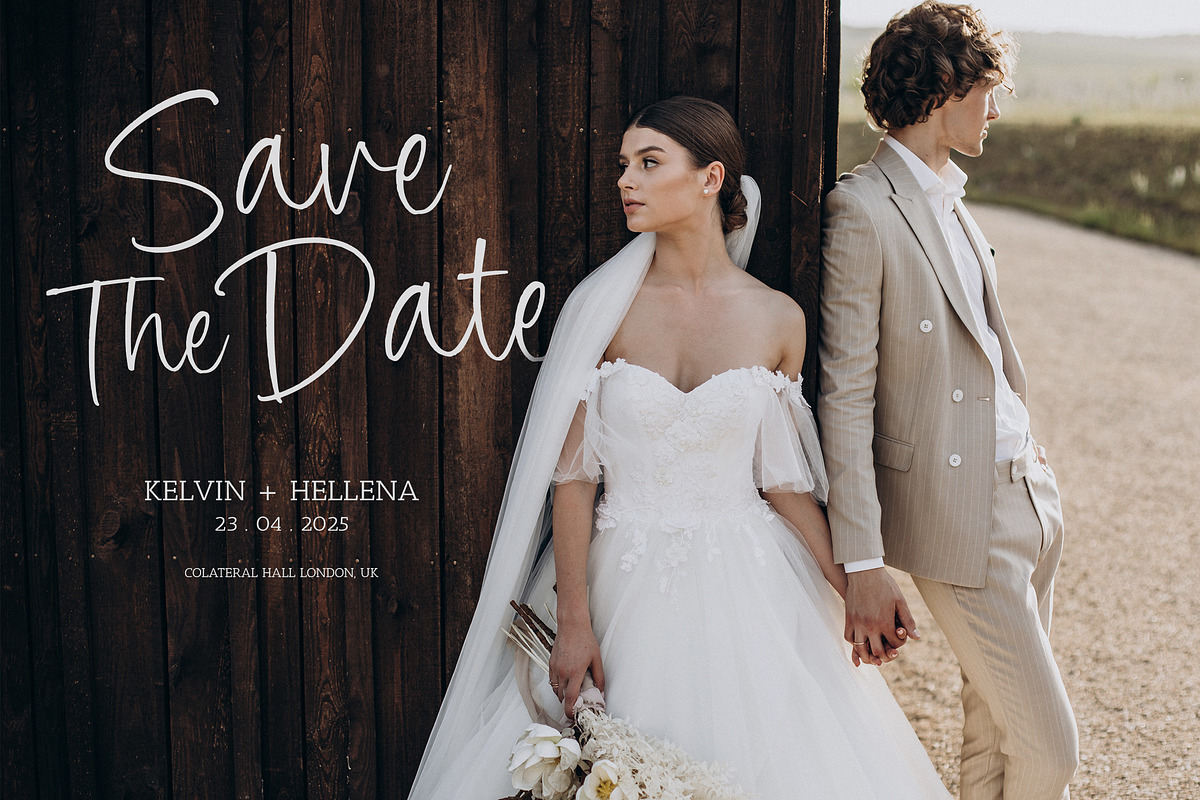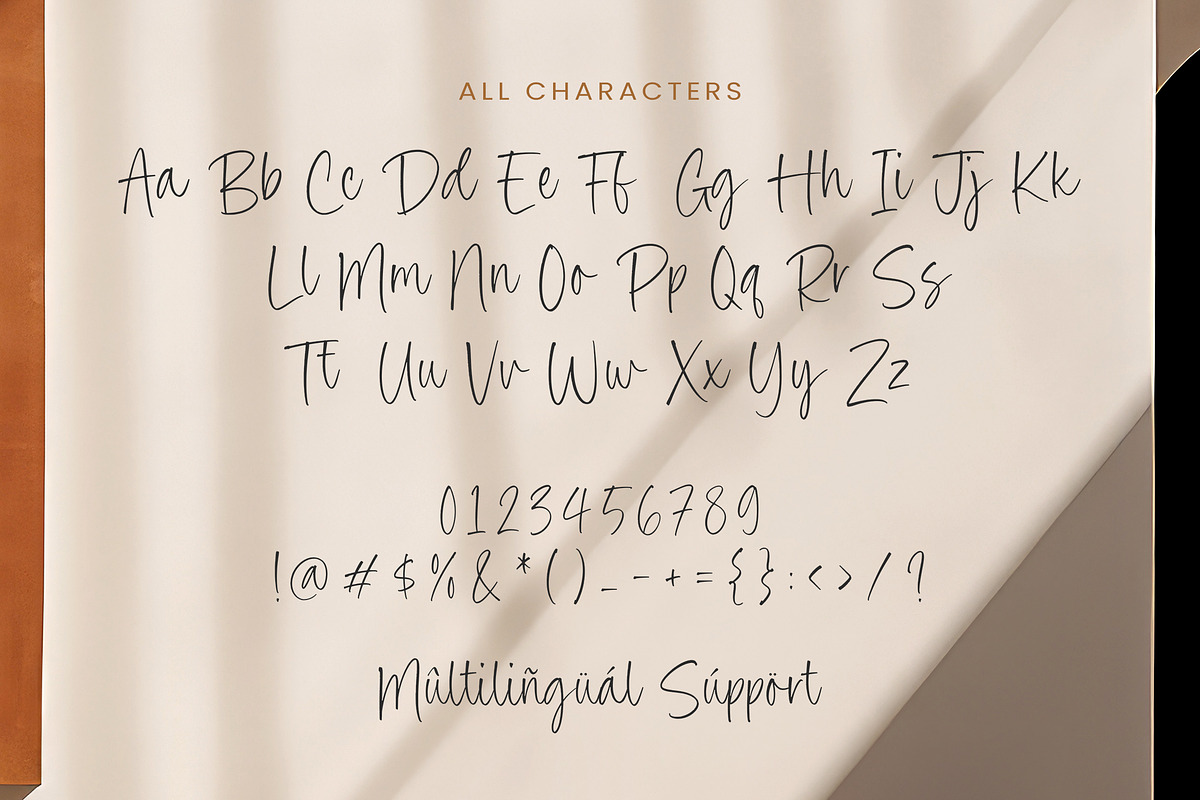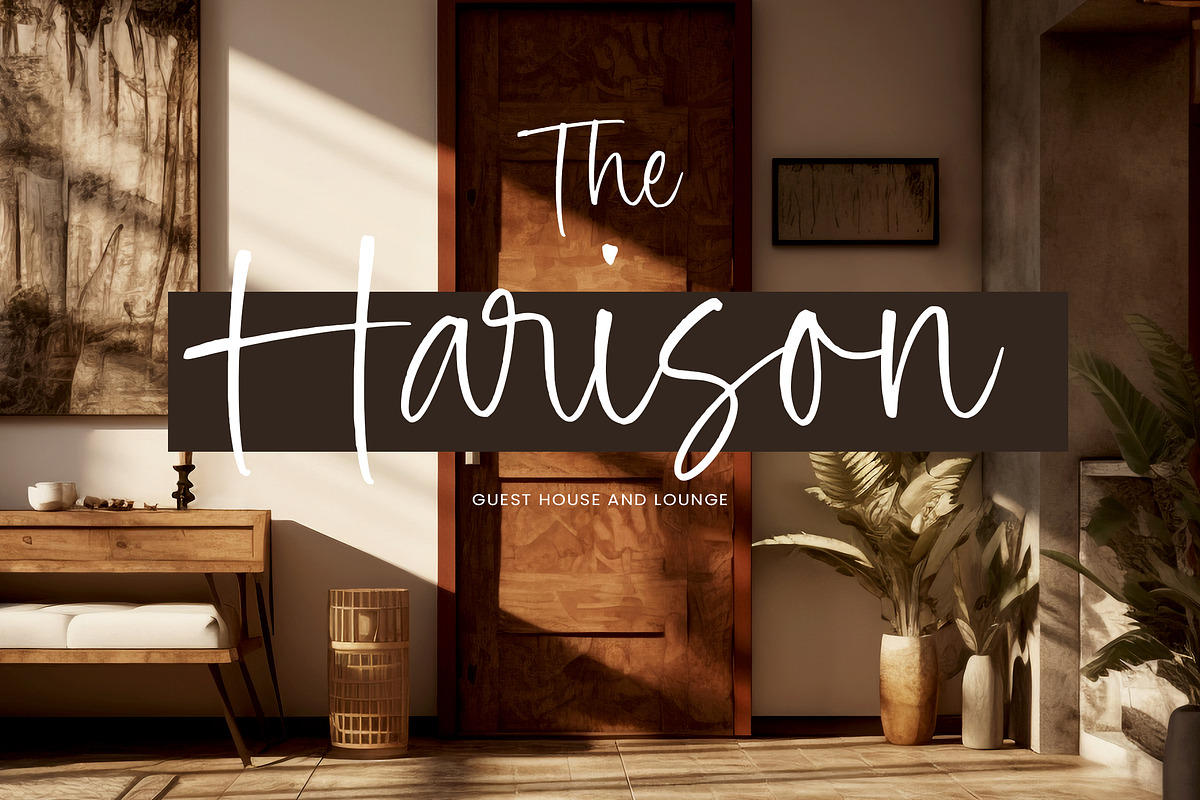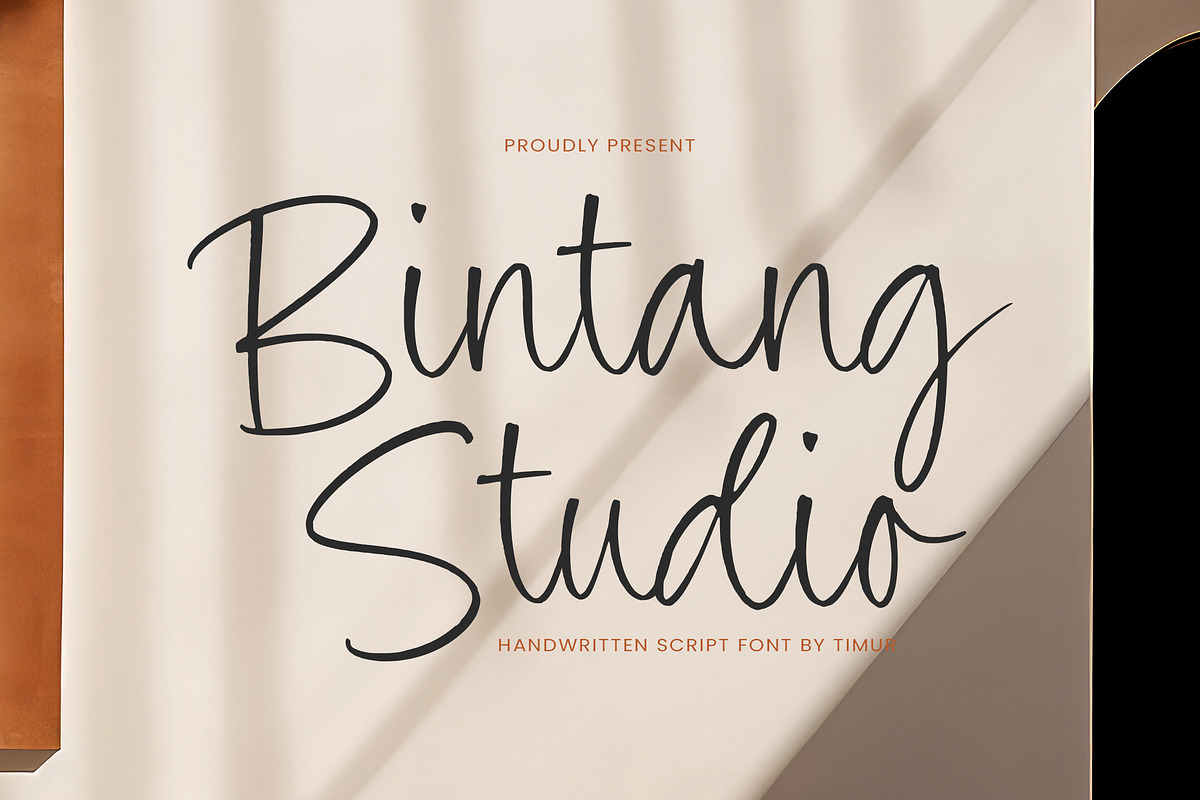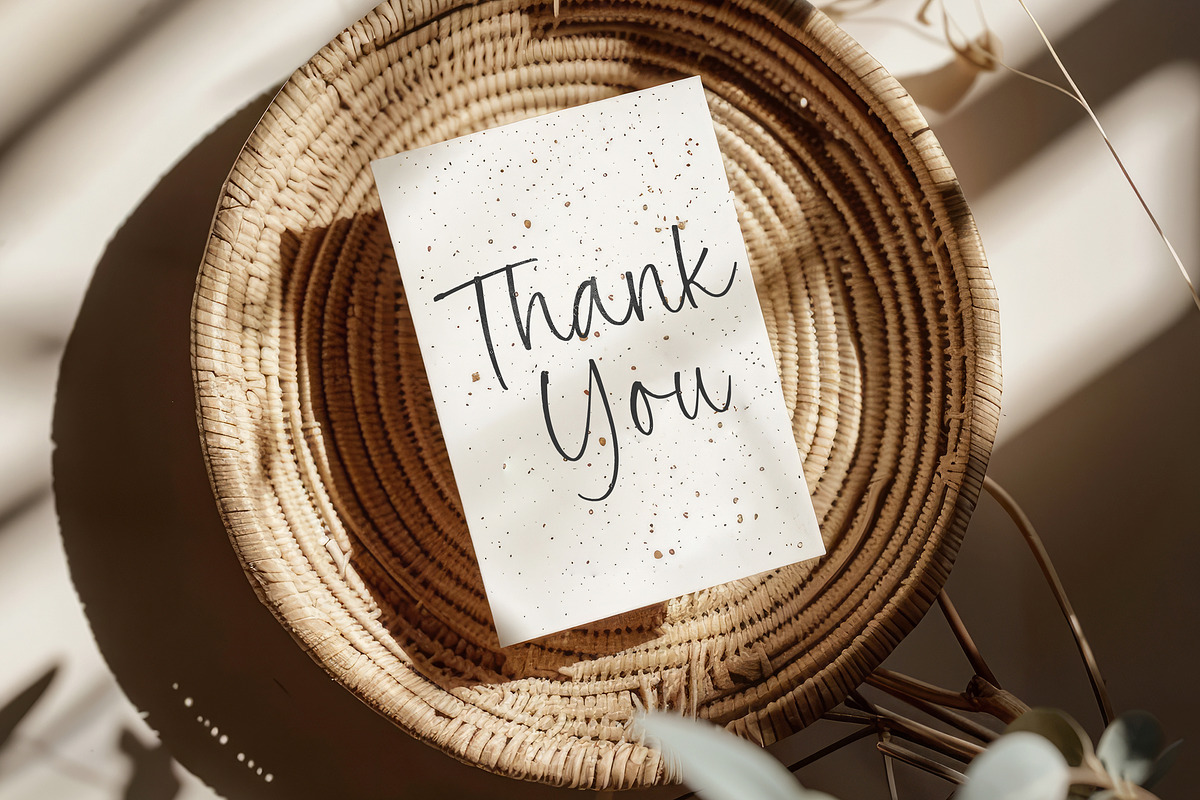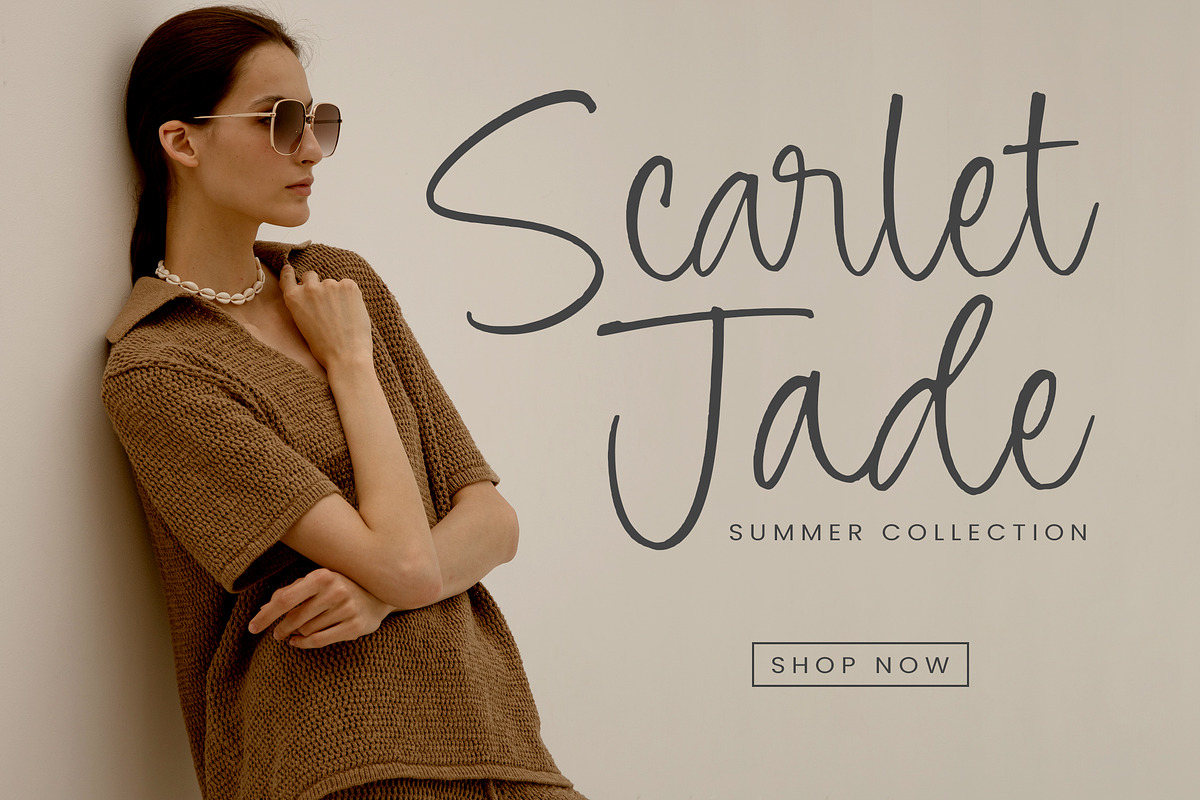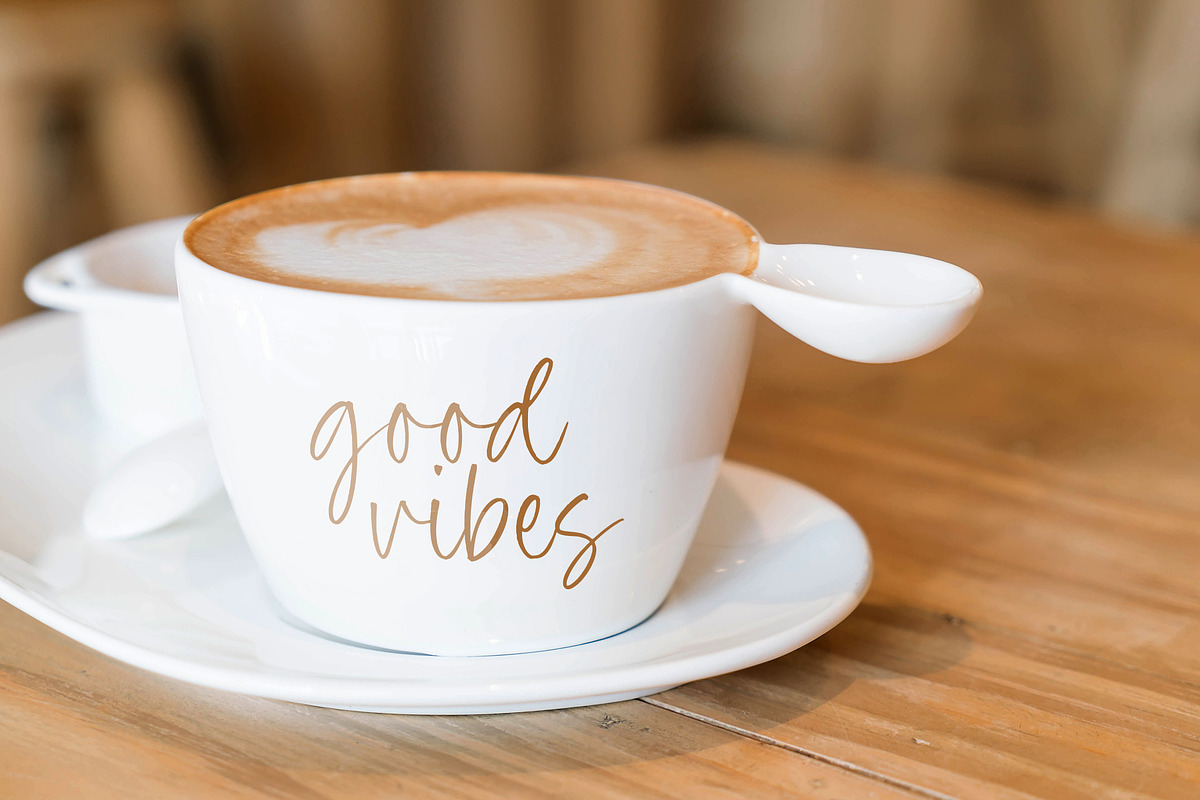
Bintang Studio Font
Bintang Studio is a Handwritten Script Font
This font is a stylish and elegant choice for your design projects. With its graceful and flowing letterforms, this font brings a touch of charm. The smooth and fluid strokes give the Bintang Studio font a refined and effortless aesthetic, perfect for adding a touch of elegance and luxury to your invitations, branding materials, and wedding designs. Whether you’re aiming for a romantic and dreamy look or a classy and timeless vibe, the Bintang Studio font offers versatility and beauty. Embrace the graceful energy of the Bintang Studio handwritten script font and elevate your designs with a touch of refined elegance and artistic flair.
Bintang Studio Font also supports multilingualism